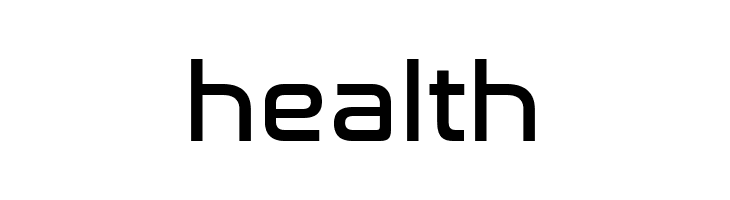
A modern, geometric font with smooth curves and a minimalist design.
A modern, geometric font with a sleek and futuristic design.
A bold, geometric font with a modern and powerful aesthetic.